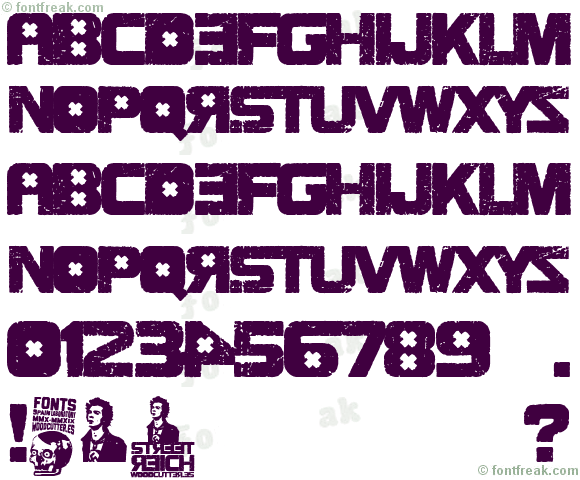
Street Reich
Street Reich is a striking display font designed by the talented woodcutter Manero, showcasing a unique blend of urban aesthetics and bold typographic presence. As a display font, it is characterized by its heavy stroke weight and a rugged, distressed texture that imbues it with an edgy, street-inspired vibe. The design features minimal contrast, yielding a solid appearance that enhances legibility, while the spacing is thoughtfully adjusted to ensure clarity even at larger sizes. Decorative elements, such as the unconventional shapes of the letters, contribute to its distinctive personality, making it an eye-catching choice for various design applications.
This font excels in use cases that demand attention and a strong visual impact. It is ideal for movie posters, particularly for action or thriller genres, where its boldness can evoke excitement. Street Reich is also well-suited for restaurant menus, especially those with a casual or contemporary theme, giving a unique flair to the dining experience. Graphic designers will find it perfect for branding projects that aim to communicate a modern and urban ethos. Additionally, it can be used effectively in streetwear fashion graphics, capturing the essence of youthful rebellion and creativity. Content creators looking for an impactful font for social media graphics will also appreciate its distinctive style.
Targeted primarily at graphic designers, small business owners, and content creators, Street Reich offers a powerful tool to convey messages with authority and style. The Street Reich font free download allows users to explore its full potential without financial constraints, making it accessible for various creative projects. This font stands out not just for its visual appeal but also for its ability to resonate with the contemporary design landscape, providing a fresh and dynamic option for anyone looking to make a statement.